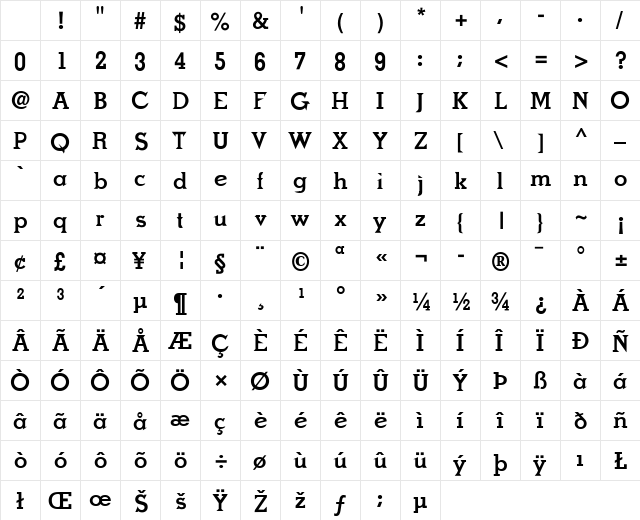
Complete Yoyoyo Medium glyph index. Displaying only characters natively supported by Yoyoyo Medium font.
Yoyoyo is a composed and adaptable typeface that performs quietly and consistently across a wide range of design contexts.